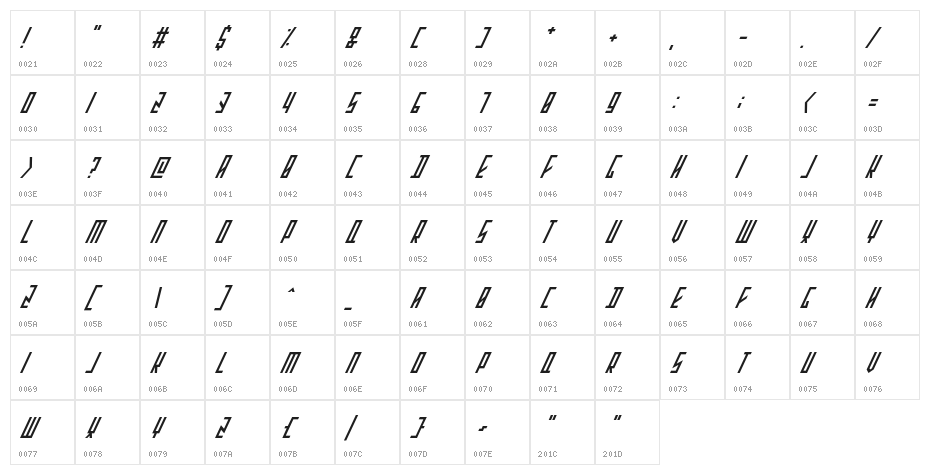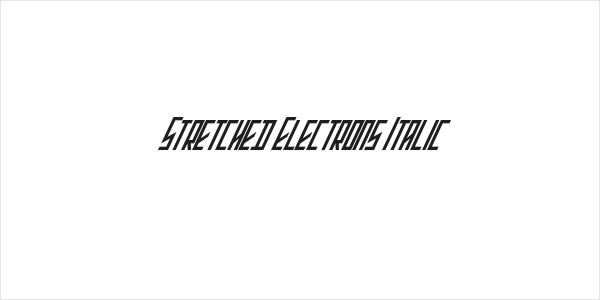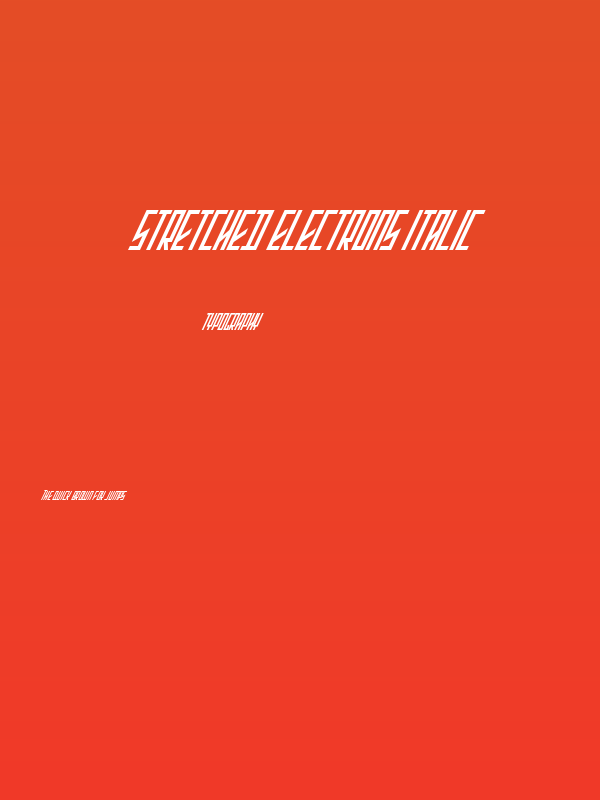
Stretched Electrons Italic Font
Stretched Electrons Italic Description
This font features a dynamic and futuristic design with sharply angled, italicized characters that convey a sense of speed and motion. The letters are elongated and slanted, creating a sleek and modern appearance. The strokes are consistent in thickness, providing a uniform look across all characters. The font includes both uppercase and lowercase letters, numbers, and a variety of special characters, making it versatile for different design needs. Its distinct style makes it suitable for projects that require a bold and energetic aesthetic.
| Proposed Projects | Ideal for branding, sports team logos, video game titles, and futuristic-themed posters. |